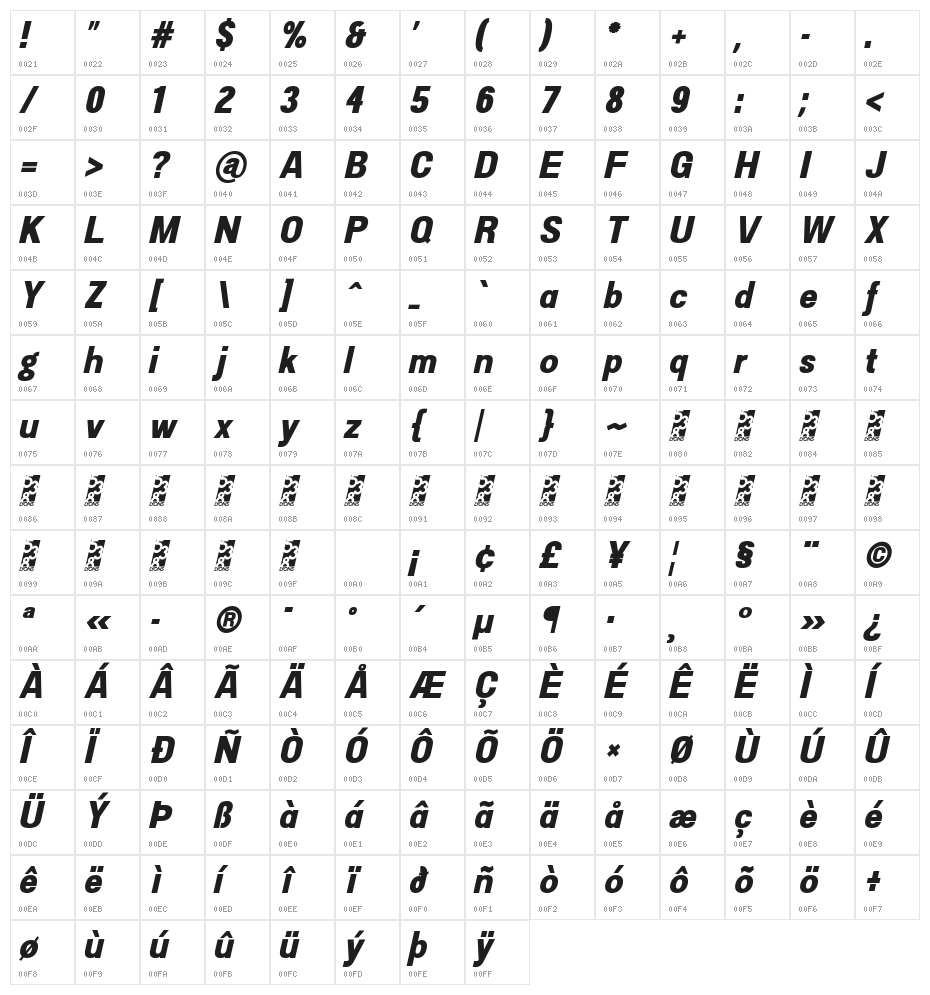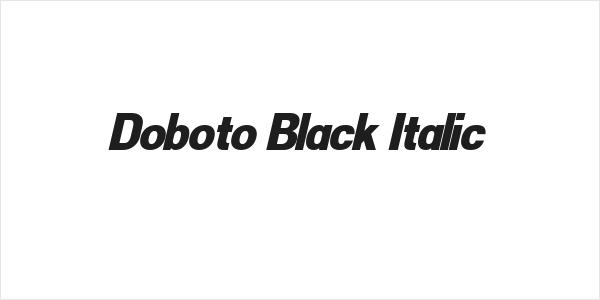
Doboto Black Italic Font
Doboto Black Italic Description
This font features a bold and italicized style with a strong presence, making it ideal for impactful designs. The characters are uniformly thick, providing a consistent and powerful look. The italic slant adds a dynamic and forward-moving feel, enhancing its modern appeal. Uppercase and lowercase letters are well-proportioned, maintaining readability while delivering a bold statement. The numbers and special characters follow the same bold and italicized design, ensuring uniformity across all text elements. This font's robust and assertive style makes it suitable for projects that require a strong visual impact.
Proposed ProjectsIdeal for headlines, posters, branding, and advertising where a bold statement is needed.